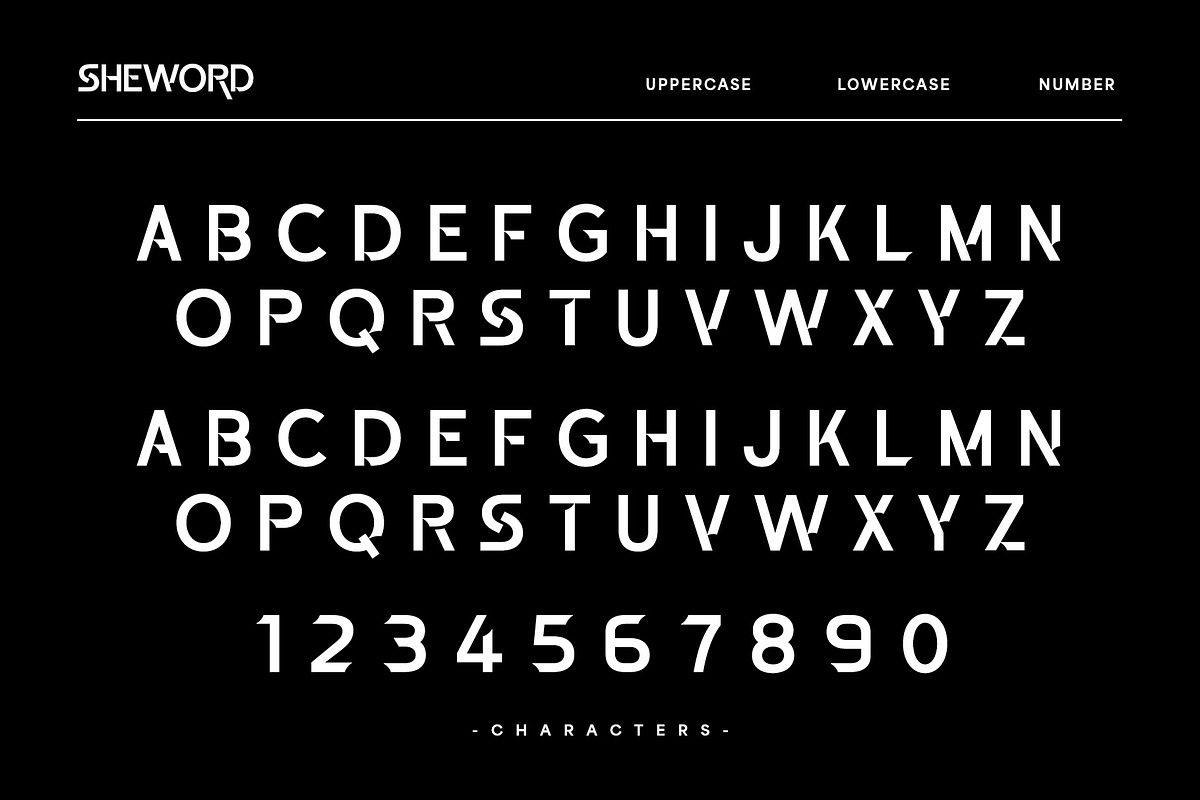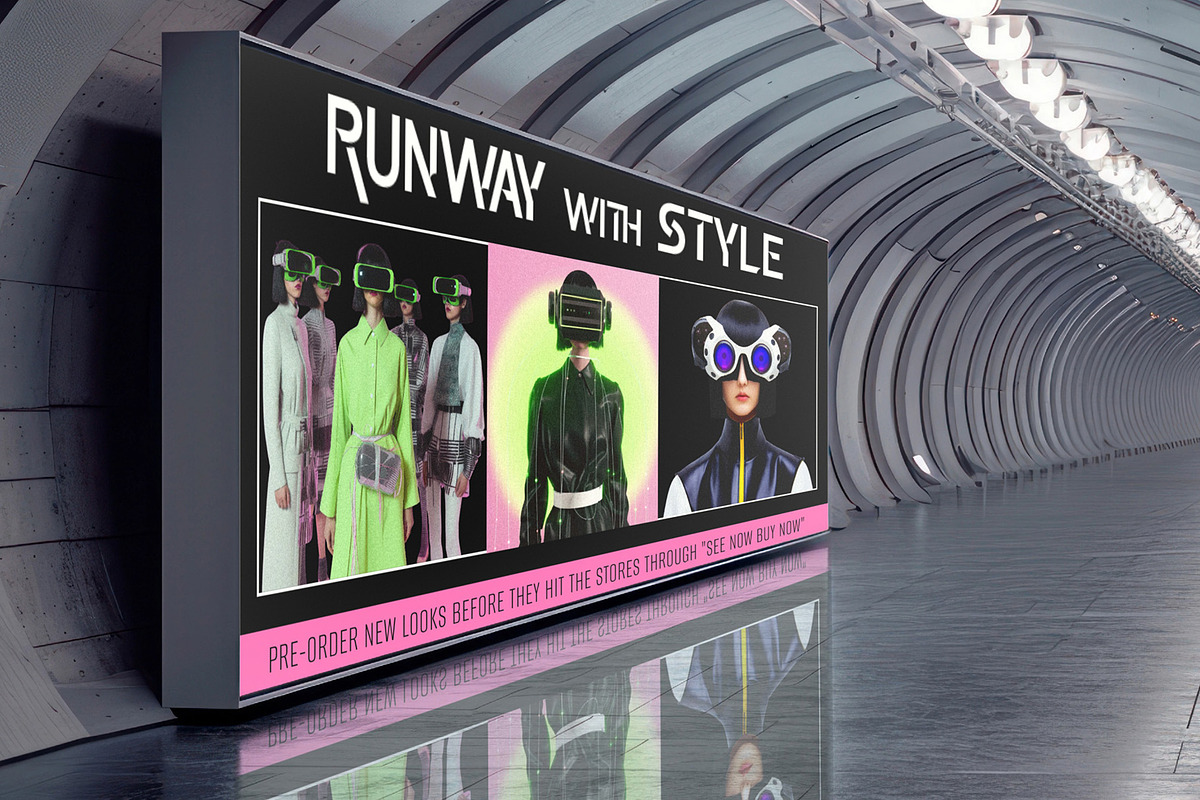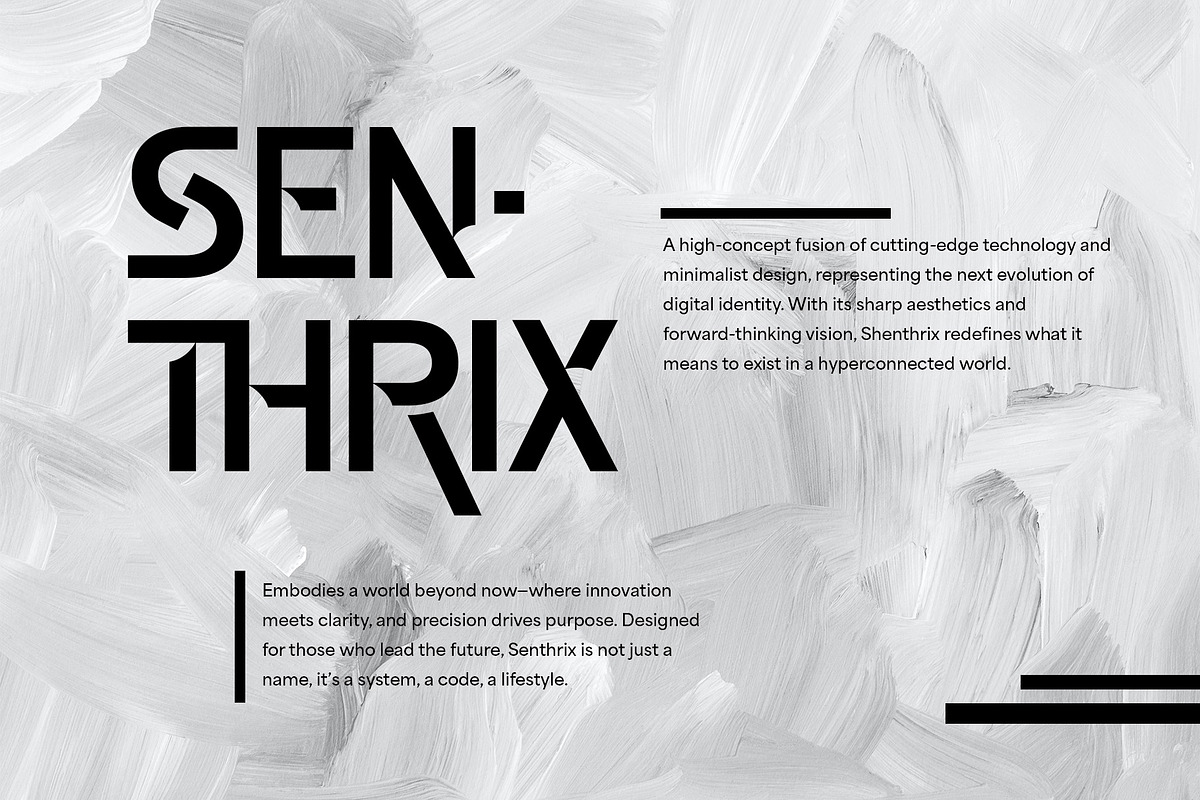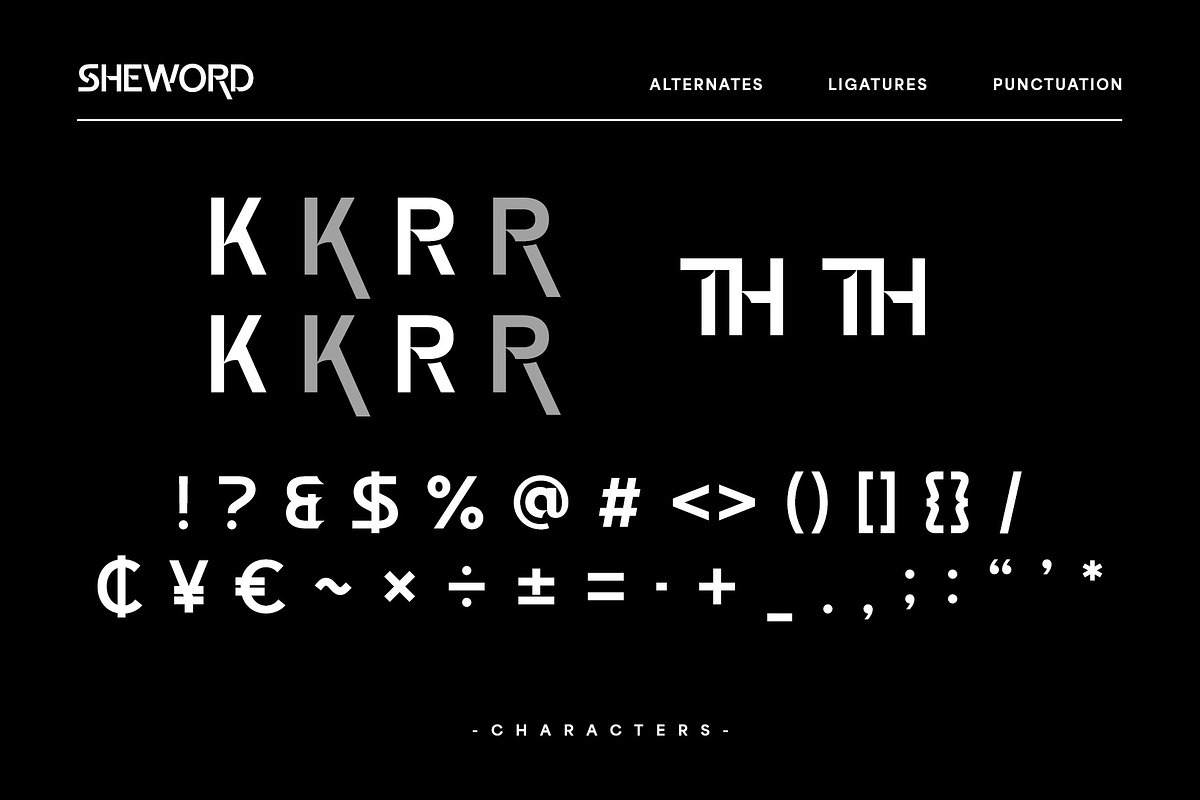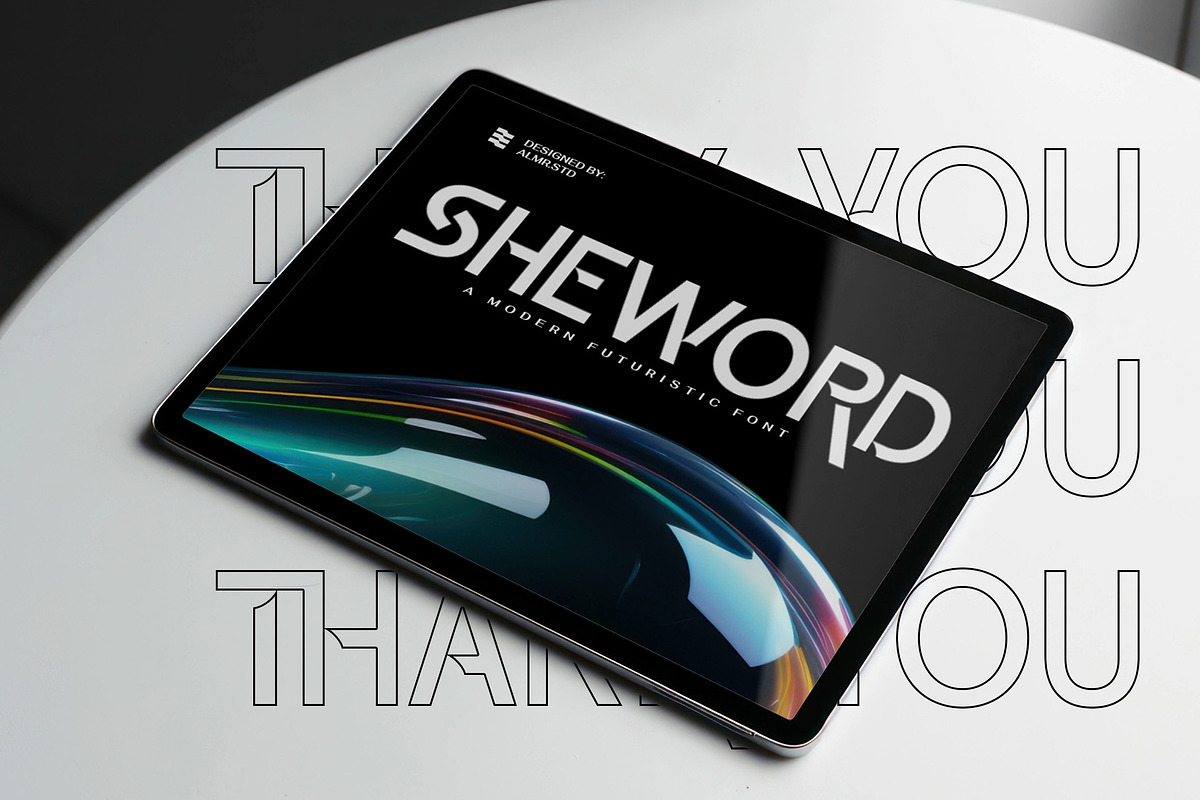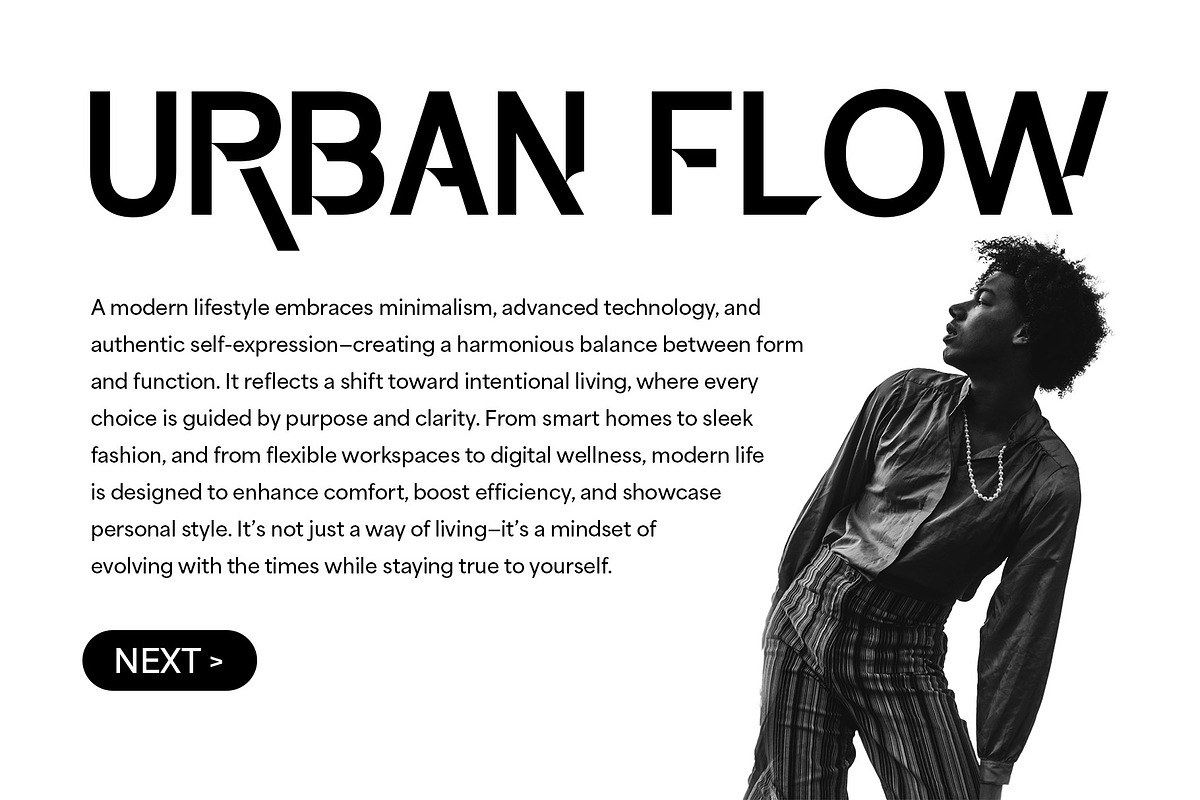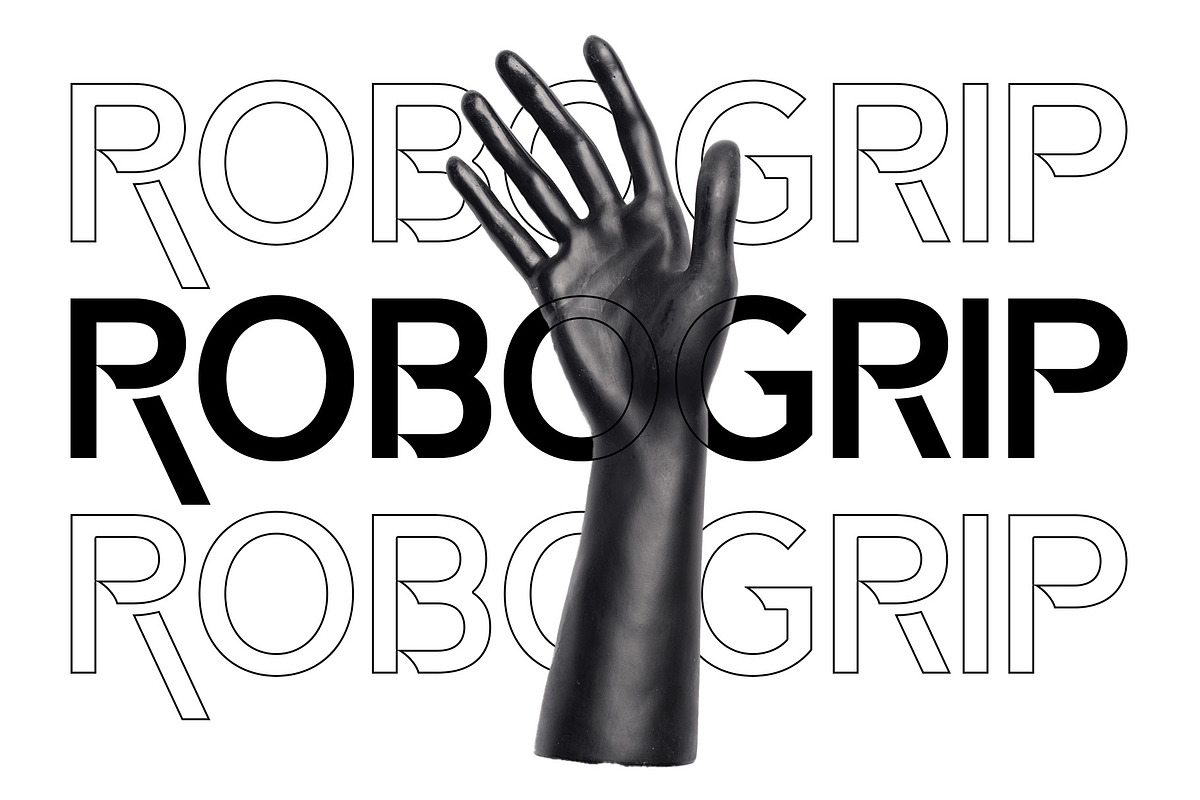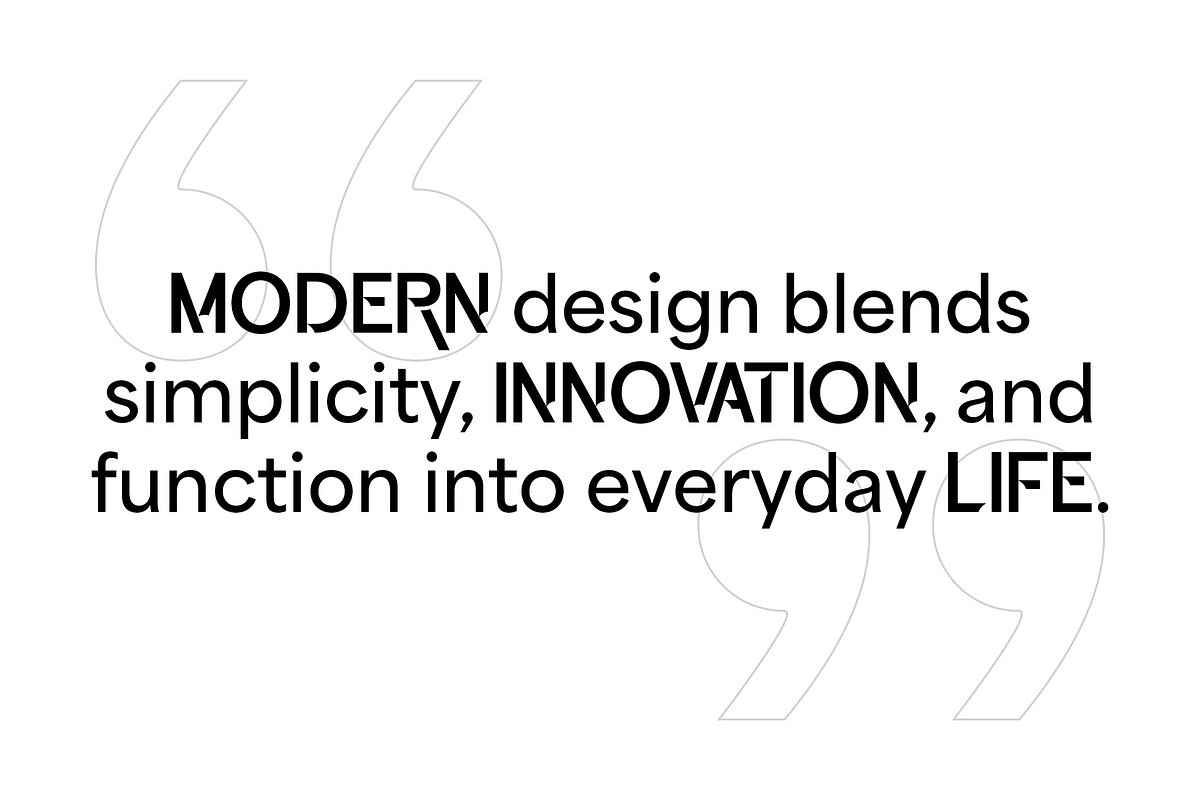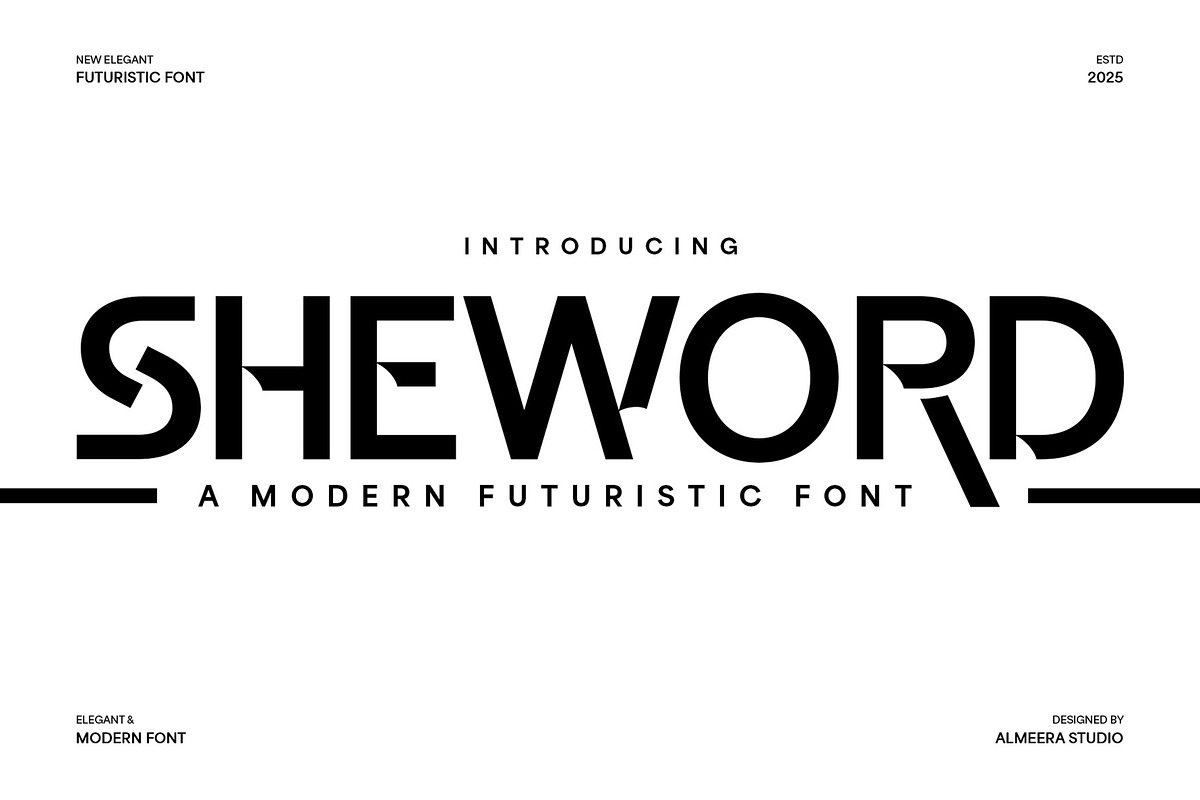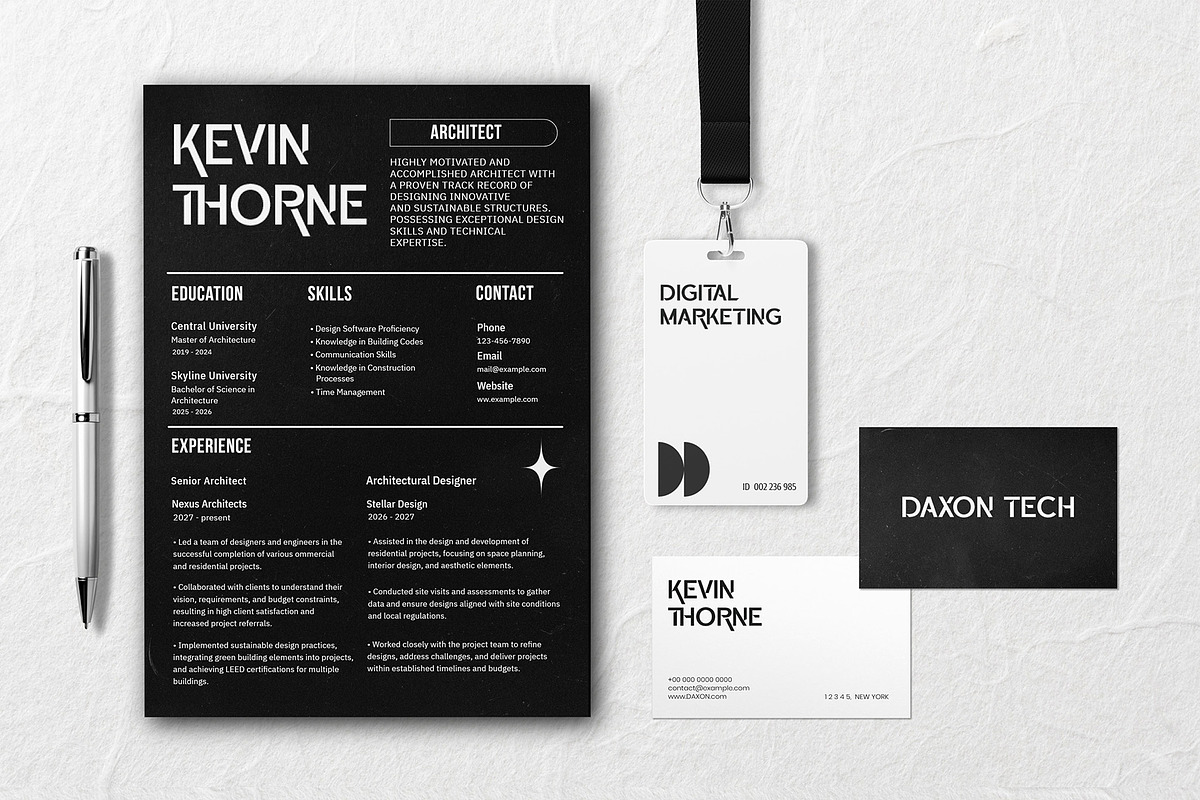
Sheword - A Modern Futuristic Font
Discover Sheword, a cutting-edge modern futuristic font that commands attention with its sleek, avant-garde design. This new elegant futuristic typeface is perfect for tech branding, sci-fi media, gaming interfaces, digital displays, automotive design, and any project that requires a forward-thinking and innovative aesthetic. Sheword features unique geometric forms and distinctive character cuts that create a truly contemporary and sophisticated look. Its bold presence ensures excellent readability and a high-tech appeal. Elevate your typography with Sheword, the ideal font for designers aiming to convey innovation, precision, and a vision of the future with undeniable style and impactful presence.